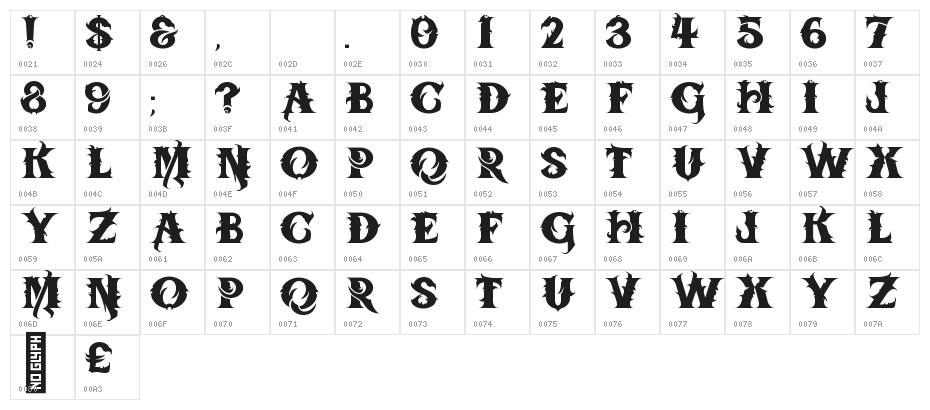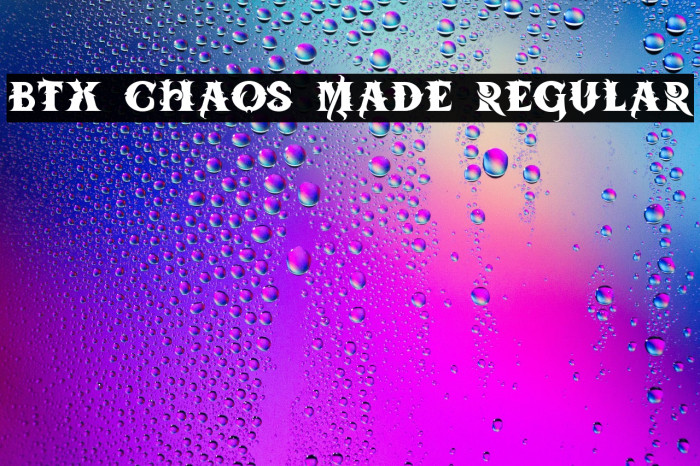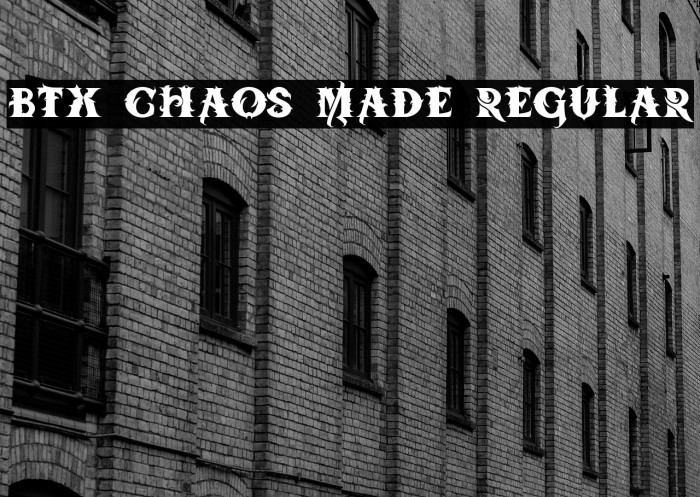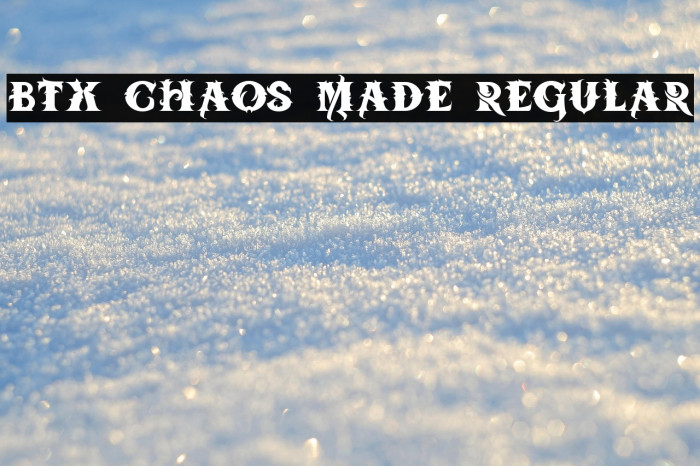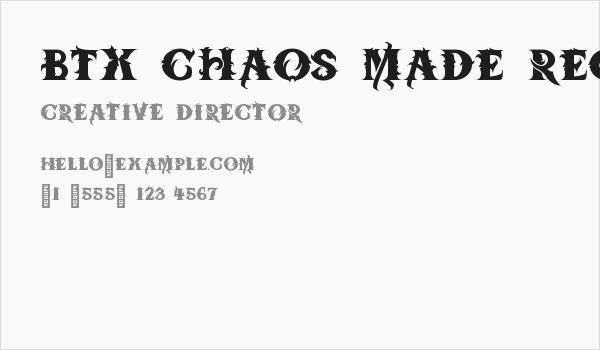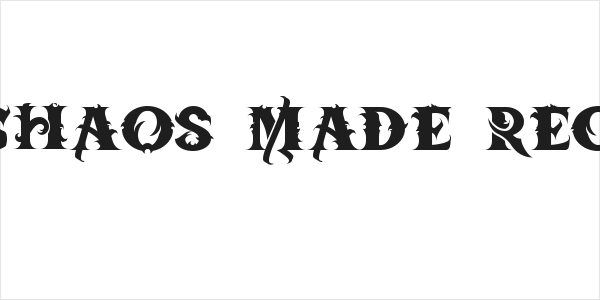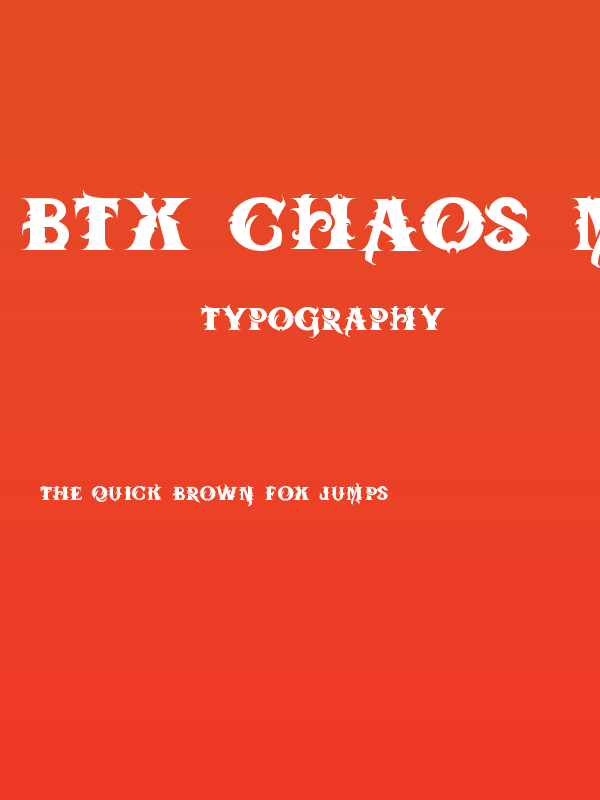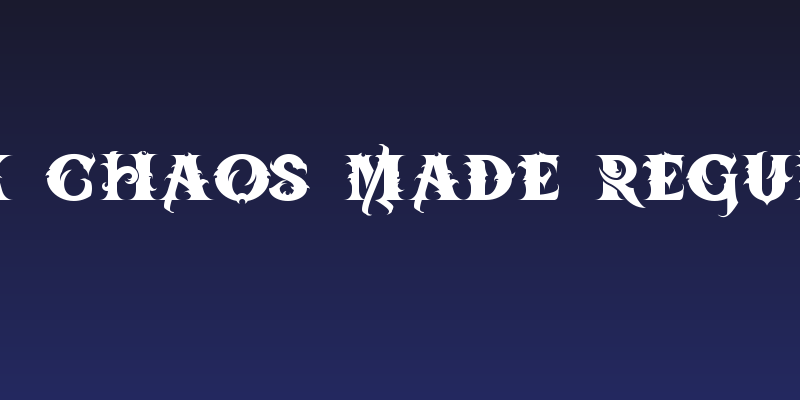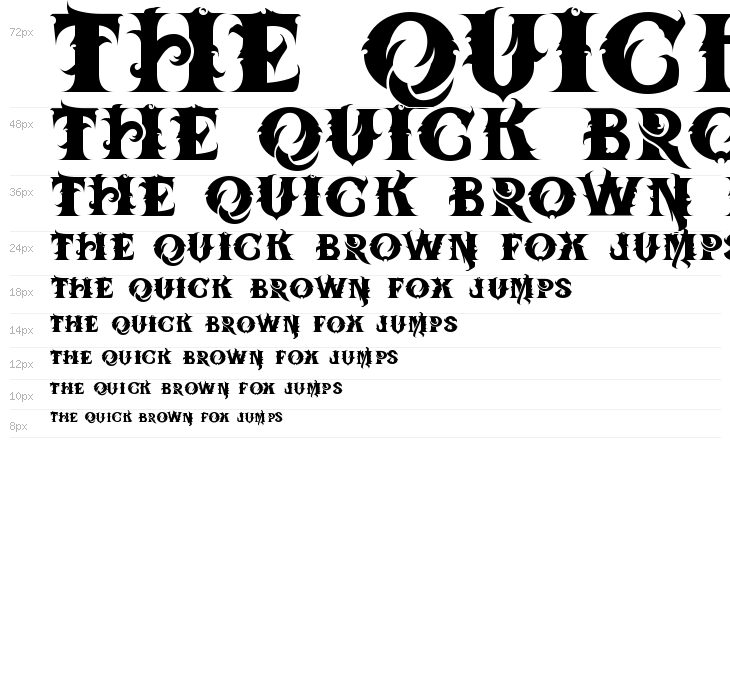
BTX-Chaos-Made Regular Font
BTX-Chaos-Made Regular Description
This font features a bold and dramatic style with intricate, sharp edges and ornamental details that give it a chaotic yet structured appearance. The characters are heavily stylized, with each letter incorporating unique flourishes and spikes that create a sense of movement and energy. The font's design is reminiscent of gothic or medieval themes, making it ideal for projects that require a strong, impactful visual presence. The numbers and special characters maintain the same elaborate design, ensuring consistency across all text elements.
| Overall Style | Gothic, Decorative |
| Proposed Projects | Ideal for album covers, posters, video game titles, and any project needing a dramatic, gothic aesthetic. |